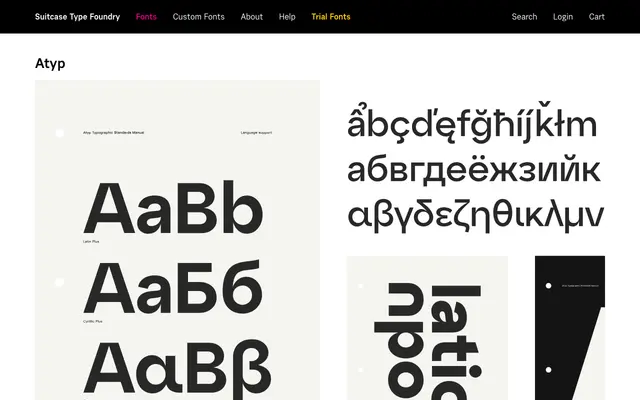
A geometric sans-serif family from Suitcase Type Foundry with two related sub-families, including a children's variant and a baseline-linked cut.
Atyp is a contemporary sans-serif offered by the Prague-based Suitcase Type Foundry, sitting within a small cluster of related families. Atyp Kido extends the design towards children's typography with seven styles, while Atyp BL offers a broader 25-font variant, suggesting optical or stylistic differentiation across the range. The page provides limited detail, but the family structure points to a systematic approach to a single underlying design.
The name and foundry context suggest a clean, contemporary geometric sans-serif design, consistent with Suitcase Type Foundry's broader catalogue of modern Central European type.